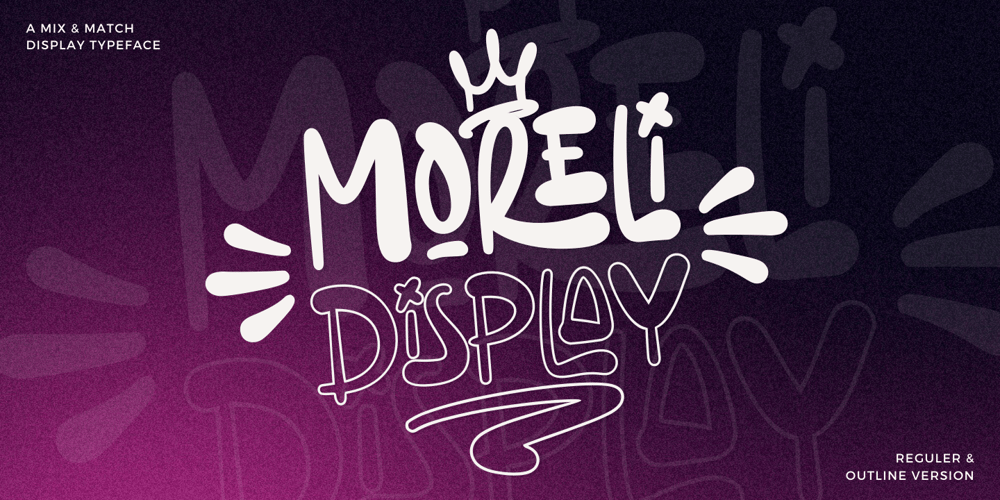
Moreli Display Font Family was designed by Ainun Jinan and published by Jinan Studio. Moreli Display contains 2 styles and family package options. Moreli Display is a wonderful typeface designed to bring a spirit of psychedelia to your projects. With mixable uppercase and lowercase glyph, ligatures, alternates, and outlines version, offers unmatched versatility for psychedelic theme design projects, apparel, branding, promotional materials, stickers, quotes, and social media posts. Let your creativity flow and embark on a captivating and transformative visual journey.Features A set of uppercase and lowercase glyphs Number, symbol, and punctuation Multilingual Support Alternates, ligatures, and swashes Outline Version Type j_1 until j_20 to features swash, ligatures will automatically replace the standard letter pairs whenever available, when using any OpenType capable software.